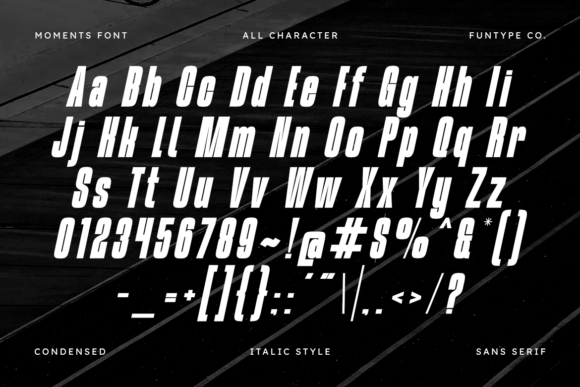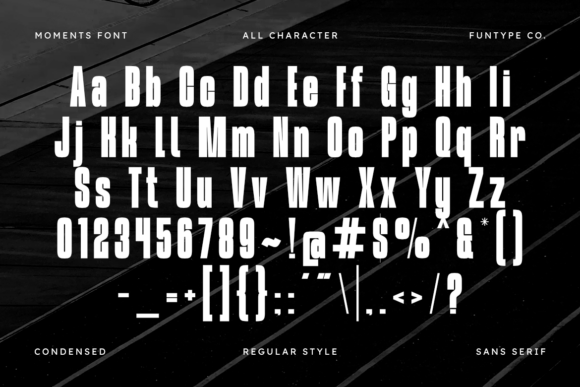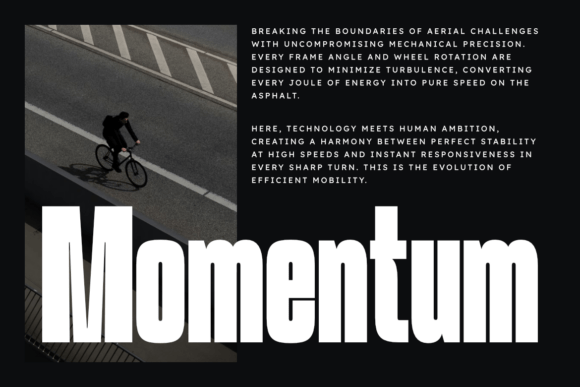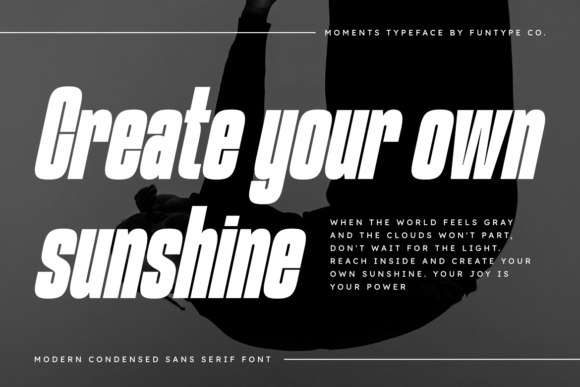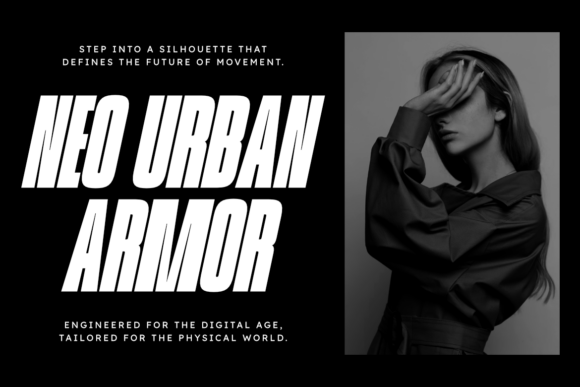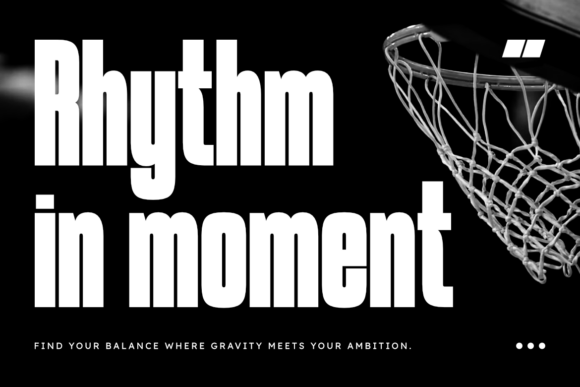
Introduction to Moments Font
Moments is a bold and ultra-condensed sans serif font designed for impactful typography.
With its tall structure, compact width, and dynamic italic style, this font is perfect for strong headlines, modern posters, album covers, sports graphics, branding, and high-impact advertising Its clean and confident design gives your visuals a striking and professional look.
Key Features of Moments Font
Why Choose Moments Font?